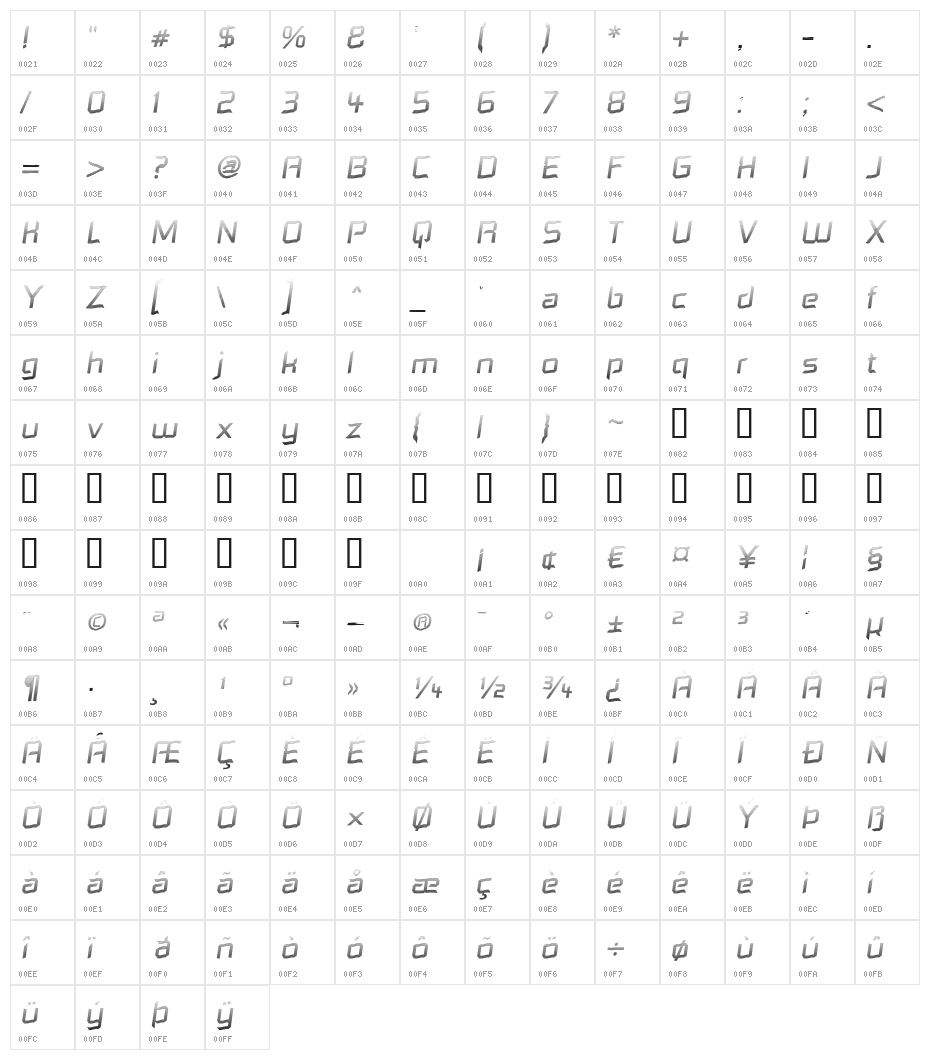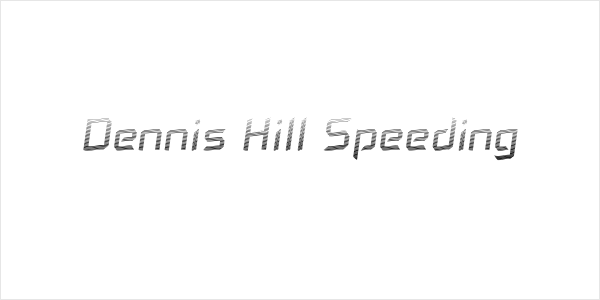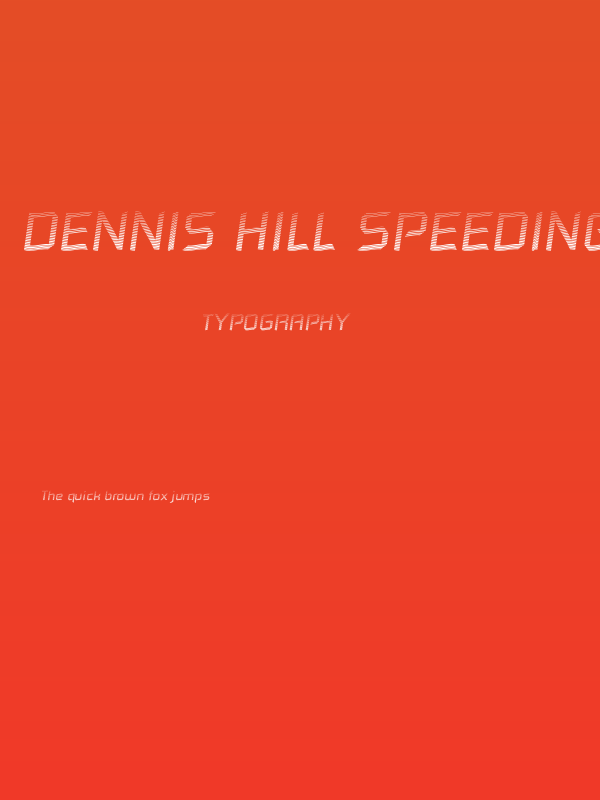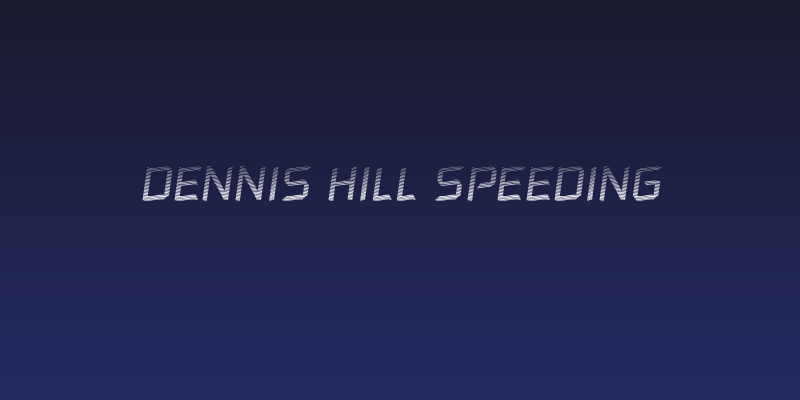
Dennis Hill Speeding Font
Dennis Hill Speeding Description
This font features a dynamic and energetic design, characterized by its slanted, italicized letters that convey a sense of speed and motion. The characters are composed of parallel lines that create a striped effect, enhancing the feeling of movement. The angular and sharp edges of the letters add a modern and futuristic touch, making it ideal for projects that require a bold and striking appearance. The font maintains a consistent weight throughout, with medium contrast in stroke thickness. Its unique style is both eye-catching and versatile, suitable for a variety of creative applications.
| Proposed Projects | Ideal for sports branding, automotive advertisements, action movie posters, and dynamic logo designs. |